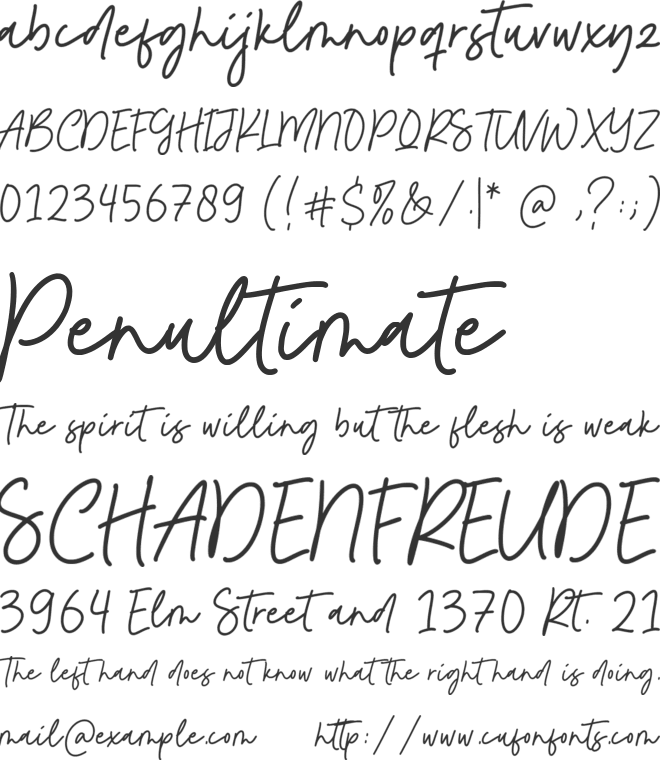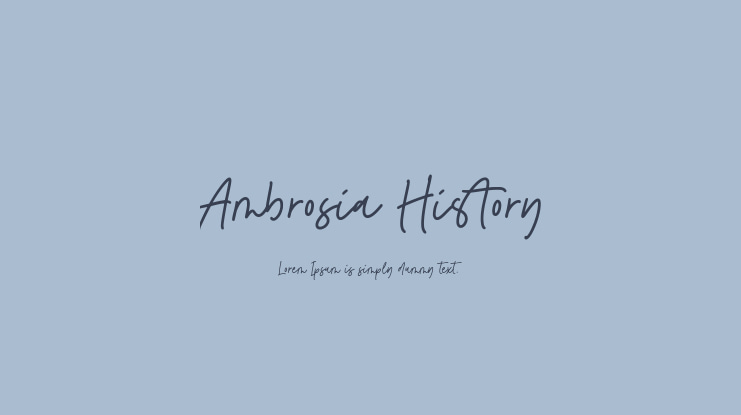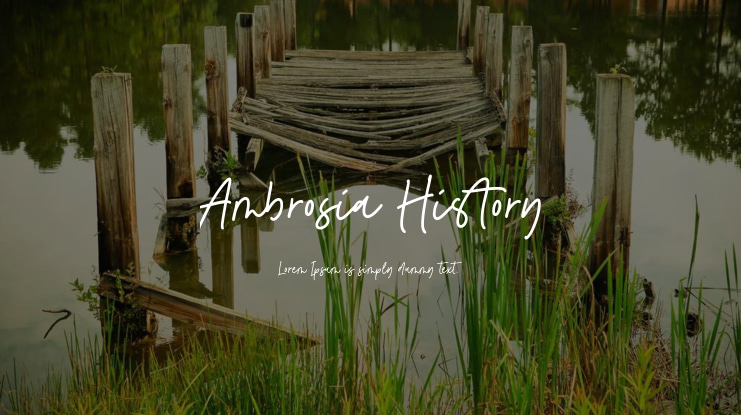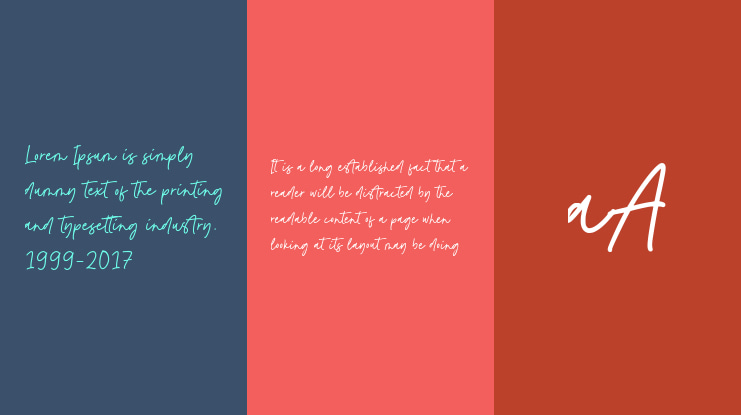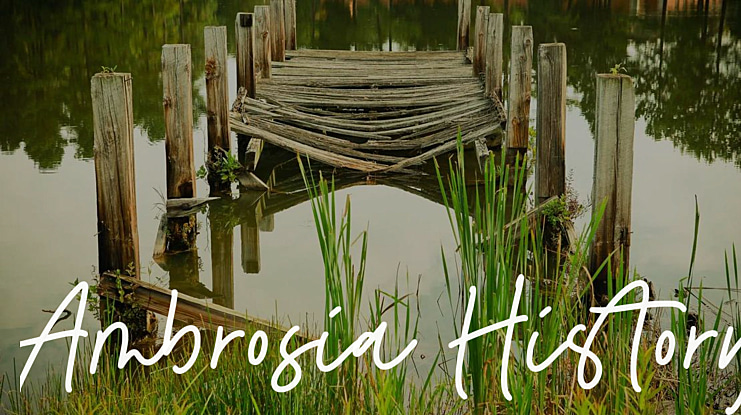
Ambrosia History Font
Introducing Ambrosia History, a Monoline Handwritten font designed by Balpirick Studio. This font is clean, elegant, and perfect for various design projects. It combines smooth, effortless lines with understated sophistication, making it ideal for those seeking a modern yet timeless look.
With meticulous craftsmanship, Ambrosia History offers incredible versatility and can be used for logos, branding, invitations, packaging, and more. Its simple yet refined aesthetic is guaranteed to leave a lasting impression on anyone who encounters it.
Ambrosia History font preview